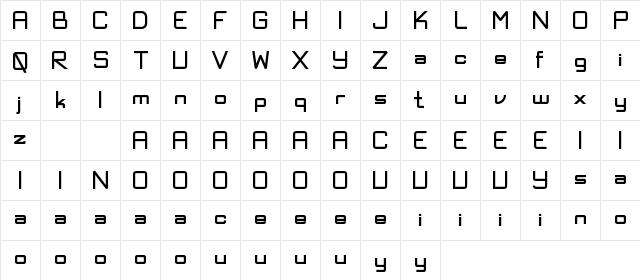
Exninja Demo Bold
Design Context for Exninja Demo Typeface
Exninja Demo is a composed and adaptable typeface that performs quietly and consistently across a wide range of design contexts. The heavy weight commands attention and anchors typographic hierarchies.